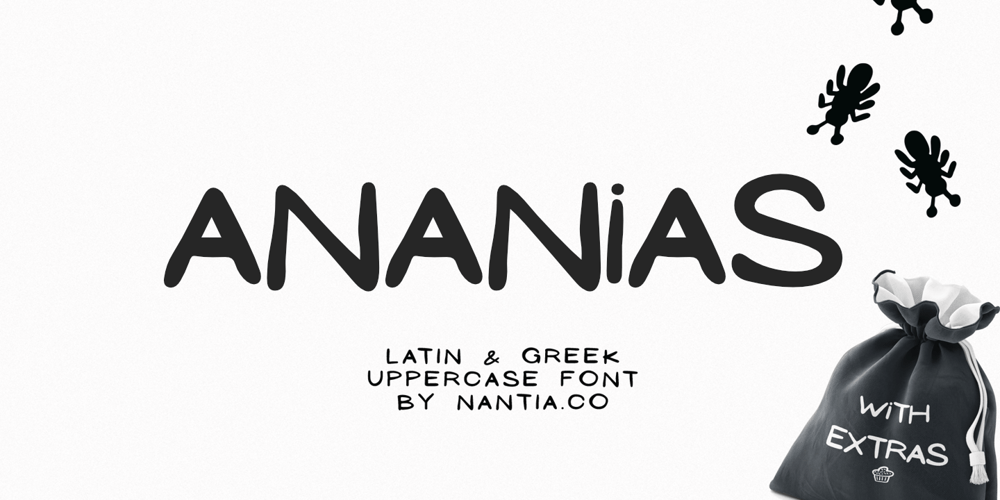
NF Ananias Font Family was designed by Konstantina Louka and published by Nantia.co. NF Ananias contains 2 styles and family package options. This font is an adorable hand-made typeface with a lot of personality. With cute doodles icons in PUA encoding, this typeface can be a mighty companion to your next graphic design project. From “hand-written” quotes to product packaging, merchandise, and branding projects, this font is so versatile that it can cover them all.What is included? Latin Characters Greek Characters Numerals + 30 icon doodles in PUA